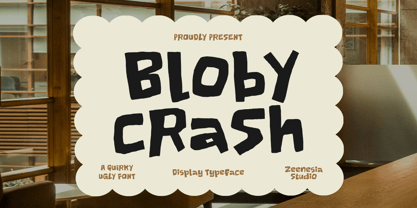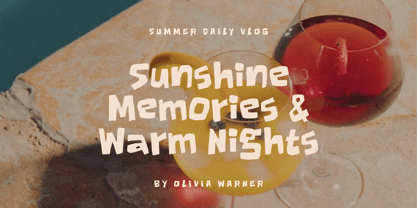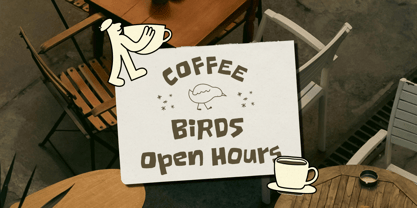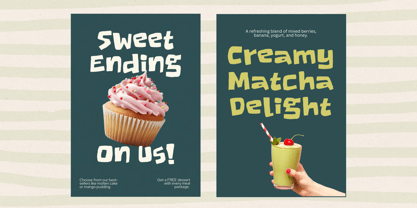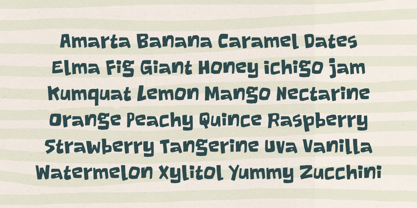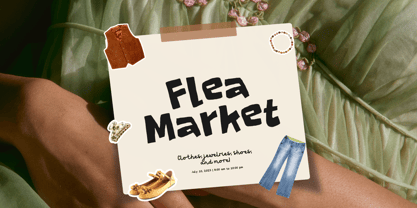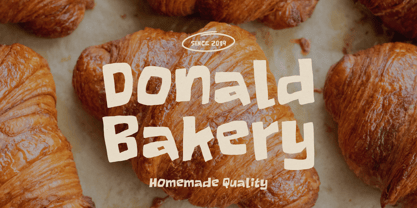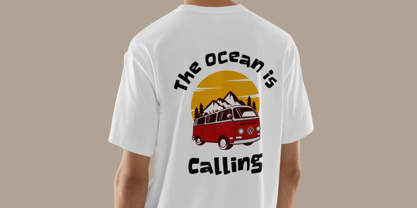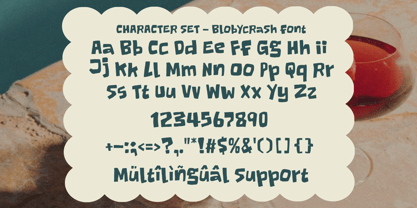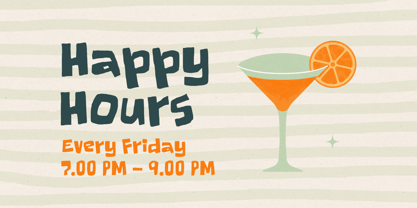
Bloby Crash
by Zeenesia Studio
The Bloby Crash Font Family was designed by Doni Purwoko and published by Zeenesia Studio. Bloby Crash contains 1 styles. More about this family
Bloby Crash is a quirky ugly font that celebrates imperfection with confidence. Its chunky hand-drawn shapes, uneven curves, and playful attitude create a bold personality that instantly grabs attention. Perfect for posters, kids branding, packaging, social media graphics, album covers, and fun creative projects, this font brings chaotic charm in the best possible way.
With its raw and expressive look, Bloby Crash feels spontaneous, artistic, and unapologetically unique — turning ordinary typography into something loud, memorable, and full of character.
Designers: Doni Purwoko
Foundry: Zeenesia Studio